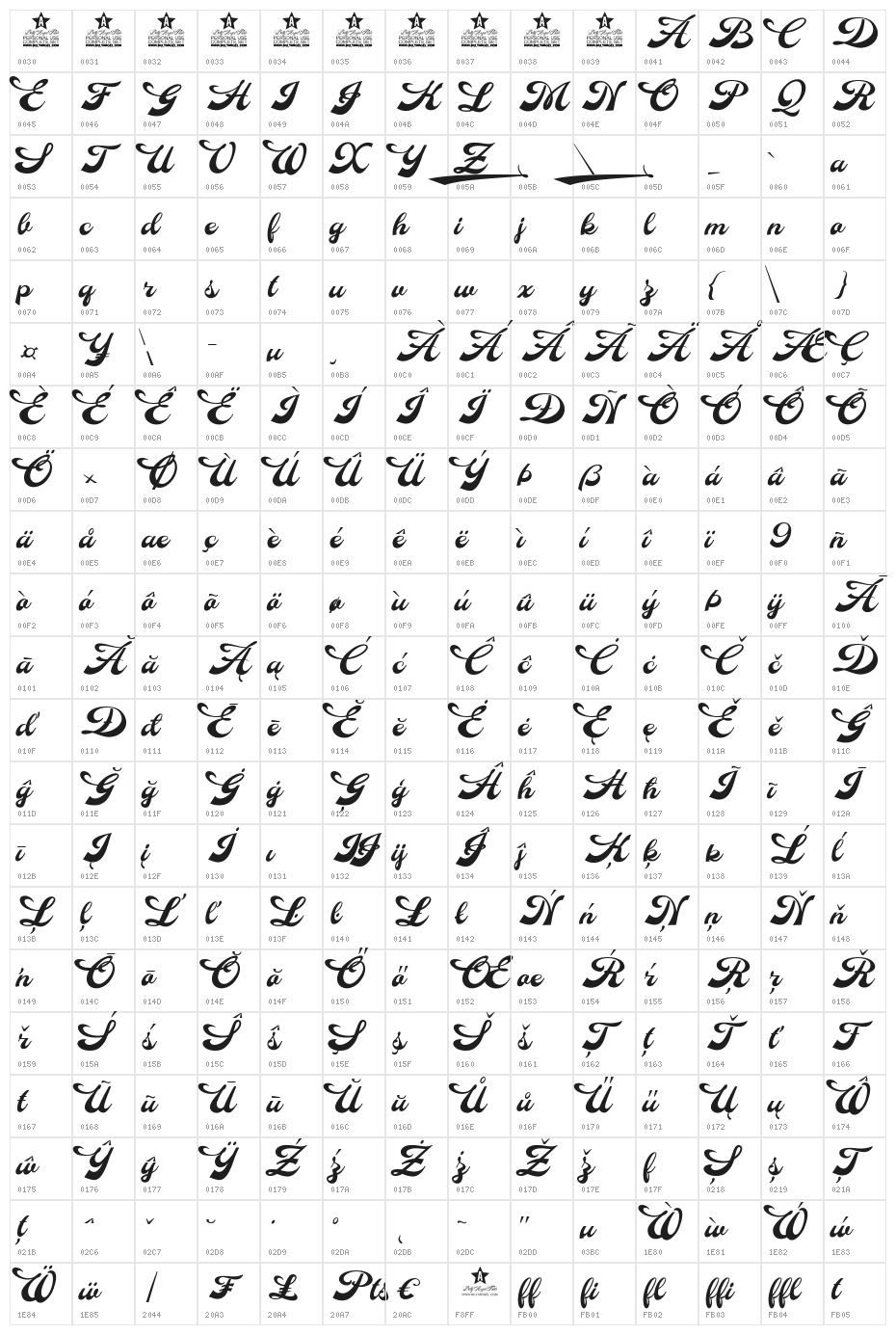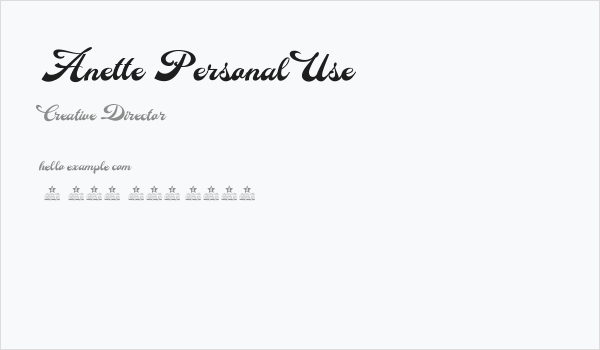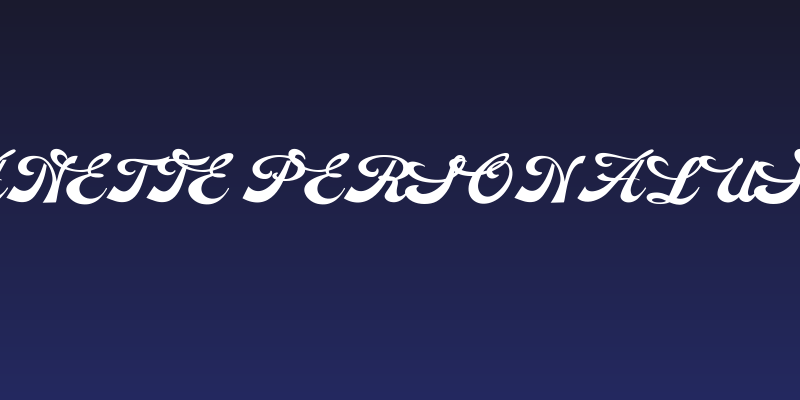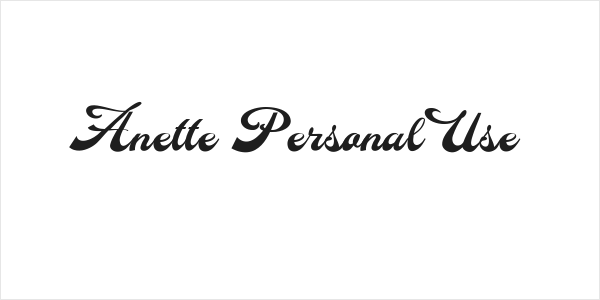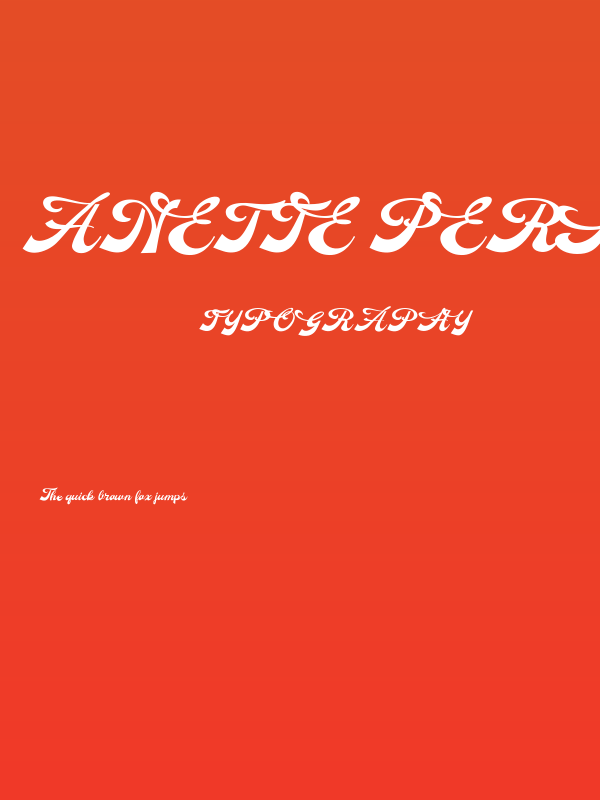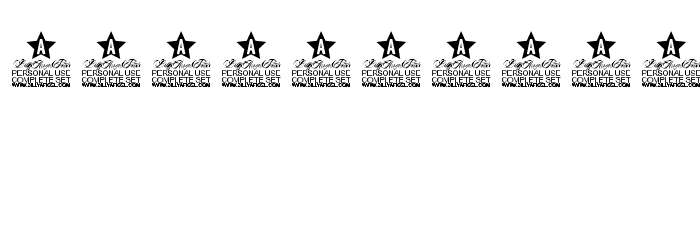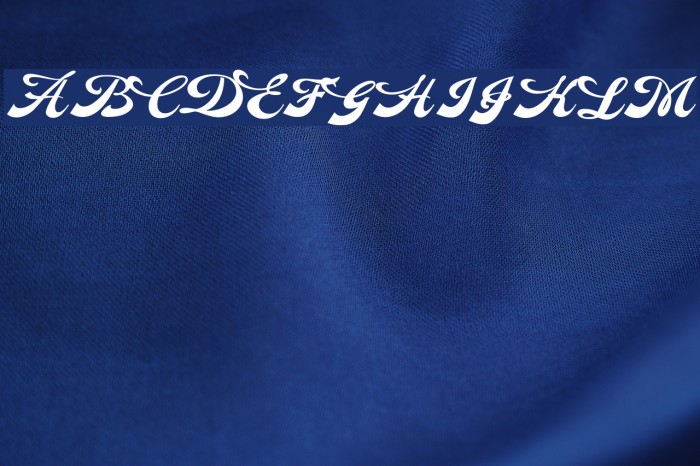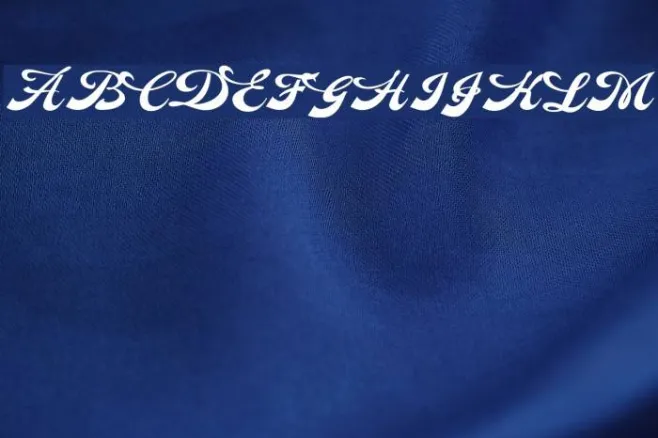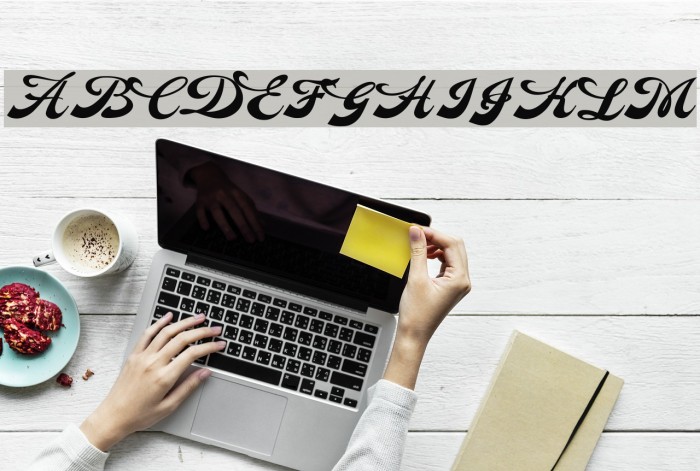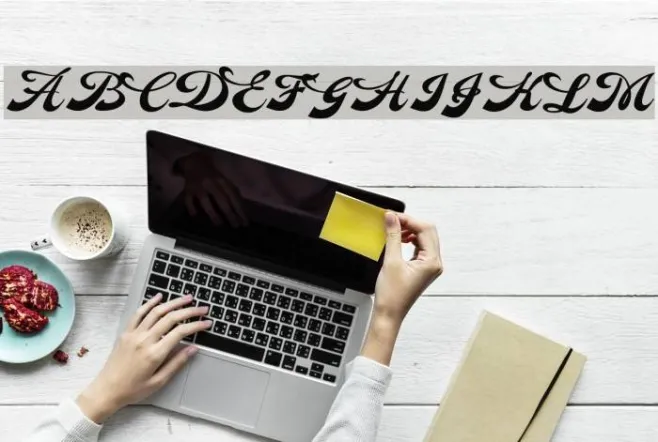
Anette Personal Use Font
Anette Personal Use Description
This font features a flowing, cursive style with elegant curves and a smooth, continuous stroke. The uppercase letters are bold and slightly slanted, giving a sense of movement and grace. Lowercase letters maintain a consistent style, with some characters like 'g' and 'y' having distinctive loops. The numbers and special characters are designed to match the overall aesthetic, ensuring a cohesive look. This font is ideal for creating a sophisticated and artistic impression, suitable for various creative projects.
| Proposed Projects | Ideal for wedding invitations, branding, logos, and artistic projects requiring a touch of elegance. |